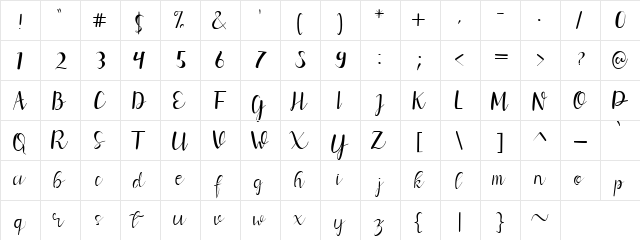
Allisya Regular
| Designer | I Made Astawa |
Allisya is a composed and adaptable typeface that performs quietly and consistently across a wide range of design contexts.